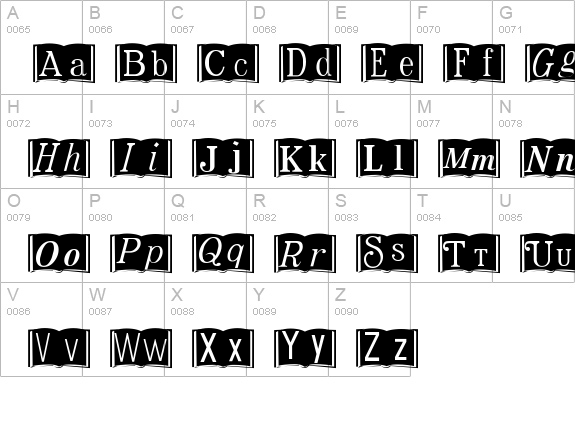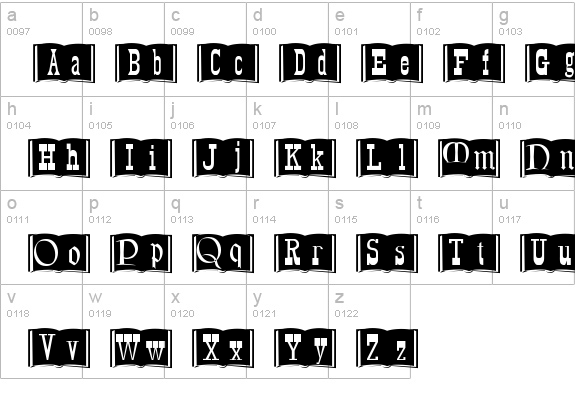
SpecimenBook.fog Font Details
SpecimenBook.fog font is a stunning typeface that effortlessly combines elegance with modernity. Its sleek and clean lines make it perfect for a wide range of design projects, from branding and logos to invitations and packaging. This font features a unique blend of geometric shapes and smooth curves, creating a harmonious balance that is pleasing to the eye. Its versatile nature allows it to adapt effortlessly to various design styles, whether it be minimalistic and sleek or bold and expressive. With its generous x-height and legible letterforms, SpecimenBook.fog font ensures readability even at smaller sizes, making it a reliable choice for both print and digital applications. Its carefully crafted proportions and attention to detail make it a font that stands out from the crowd, adding a touch of sophistication to any project. One of the best aspects of SpecimenBook.fog font is that it is free to download at FontsMarket.com. This means that designers and creatives can easily access this exceptional font without any cost. Whether you are a professional designer or a hobbyist, this font offers an opportunity to enhance your projects without breaking the bank. So, if you are looking for a versatile, elegant, and freely available font, look no further than SpecimenBook.fog font. Download it today at FontsMarket.com and unlock endless possibilities for your design endeavors.